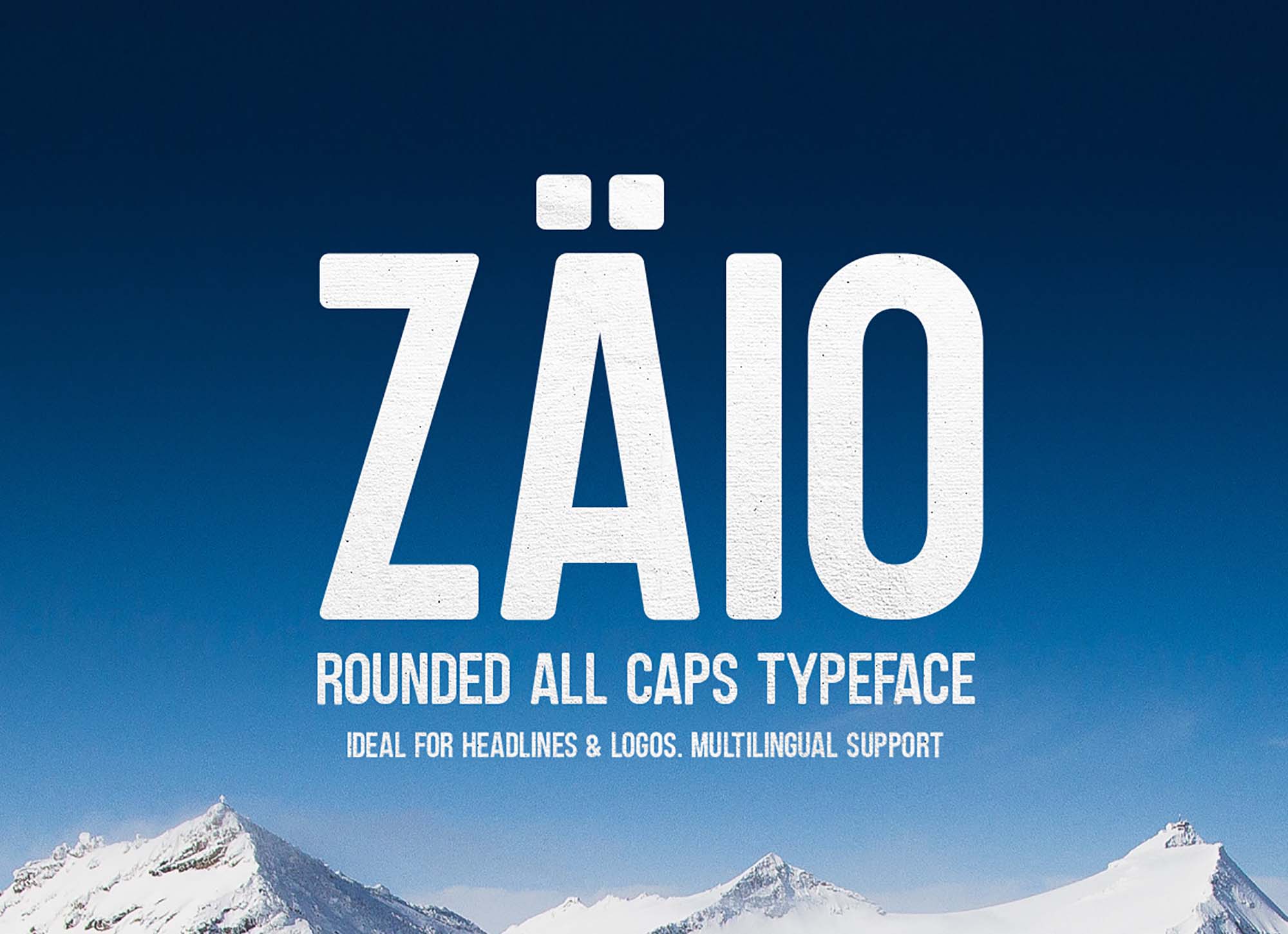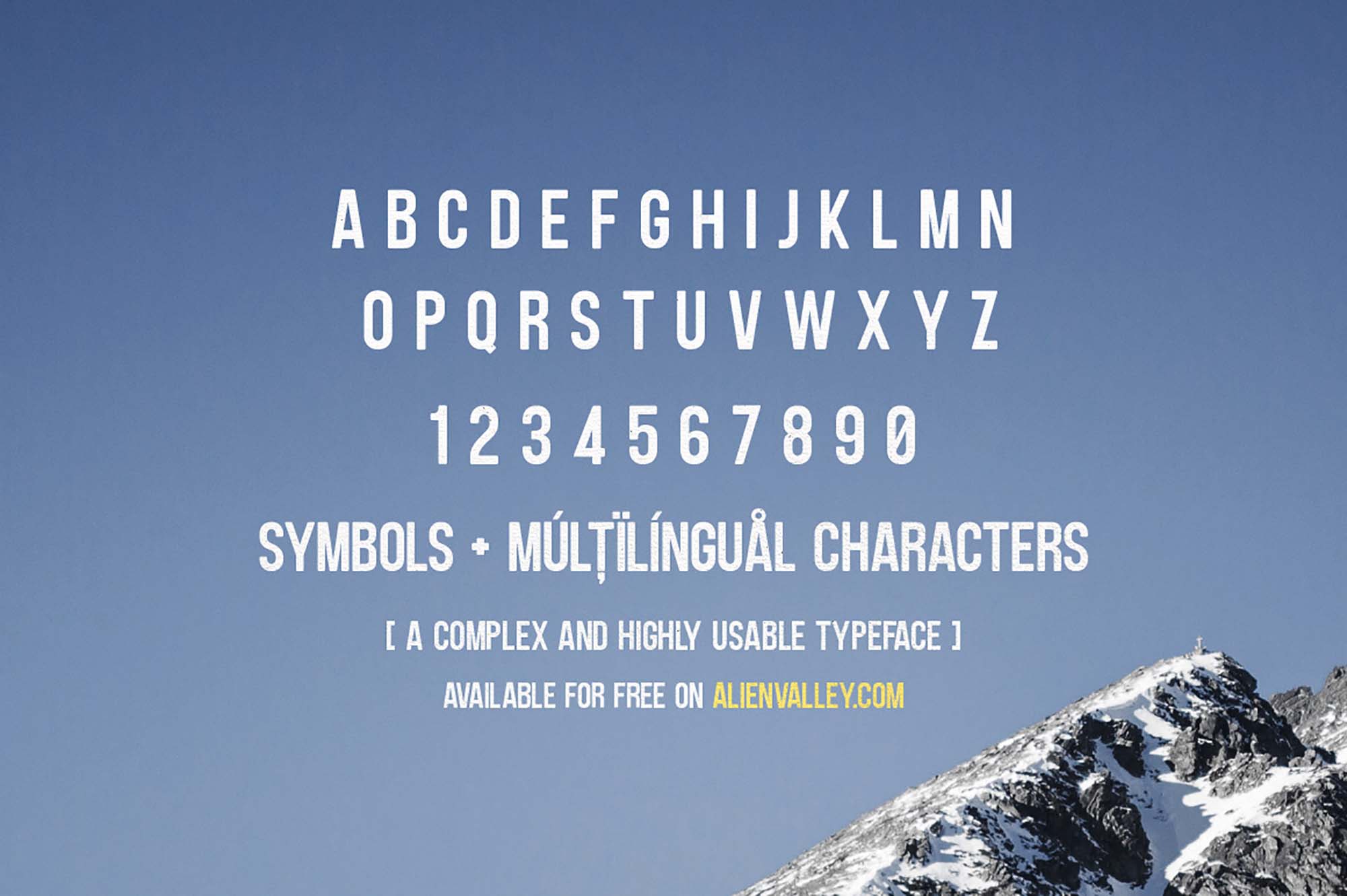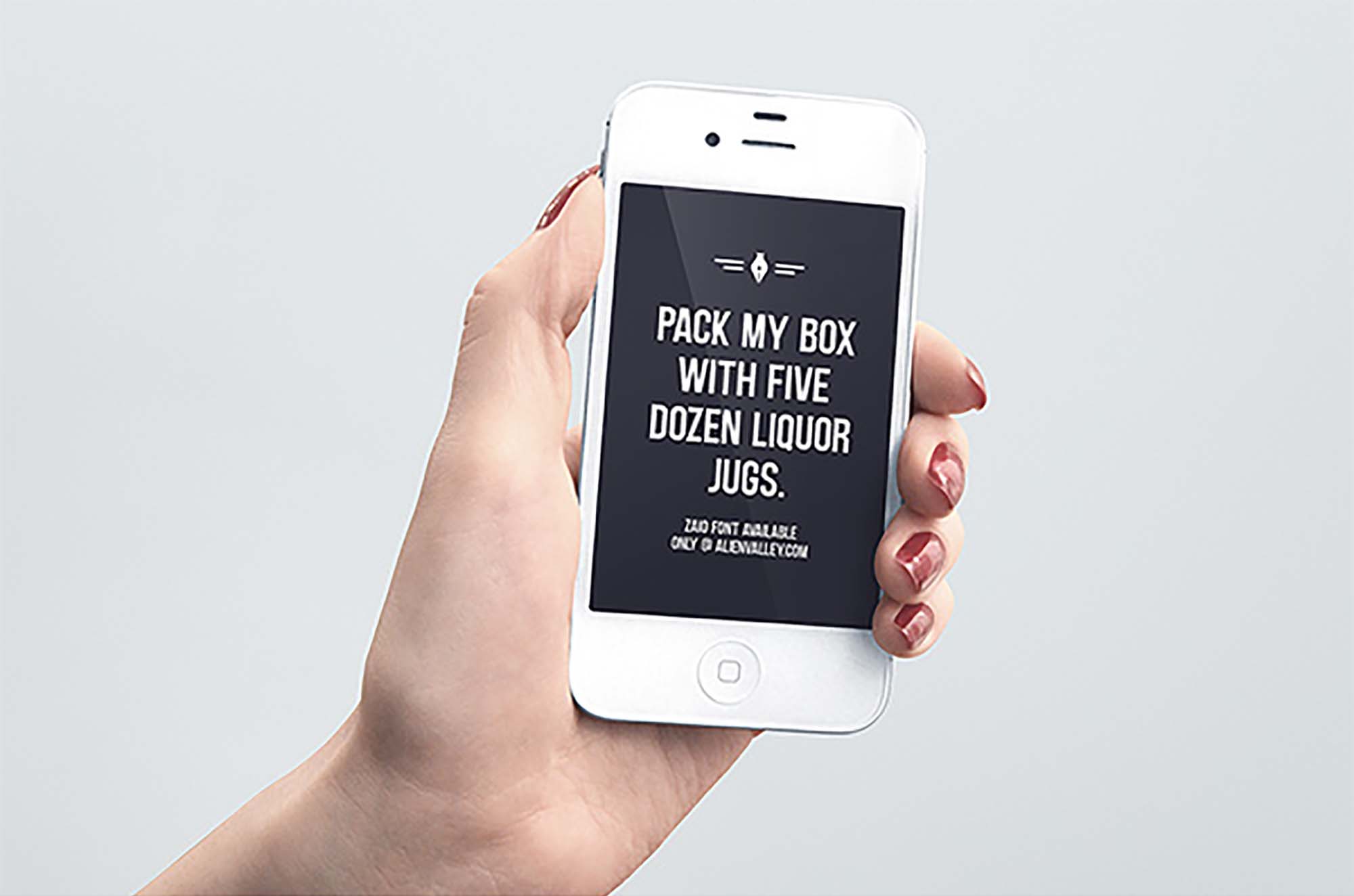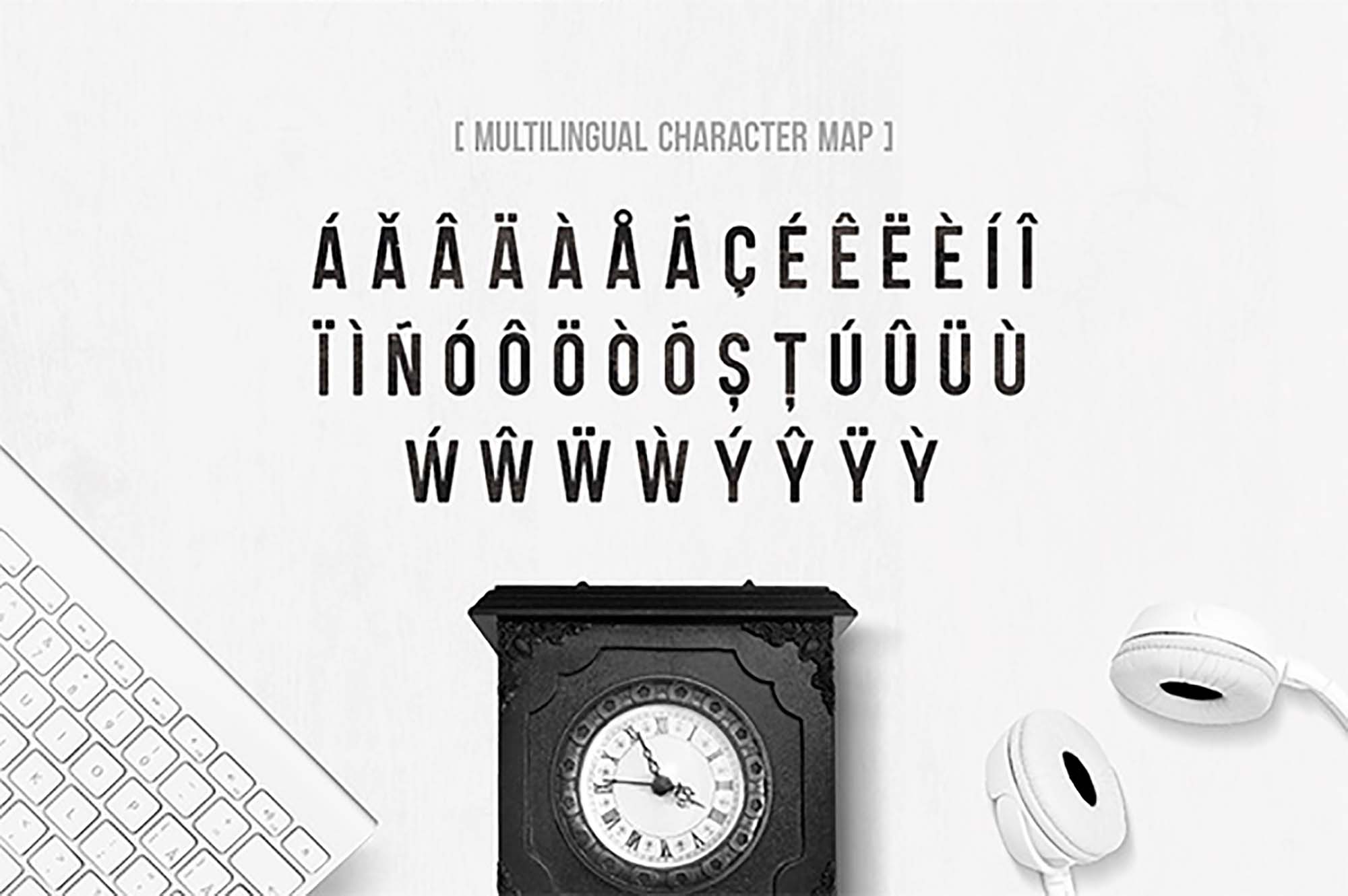
Zaio Rounded Font
Some fonts are created to embellish a scene and some are designed to make it. So instead of trying to make your texts appear richer and more vibrant, simply make them so with Zaio. Introducing Zaio, a new all caps rounded typeface inspired by Bebas Neue by Ryoichi Tsunekawa.
Rich with its complex characters, straight lines, and consistent height, it’s ideal for headlines and logos, so with a commercial license present, you can create designs for stationery projects, magazines and newspapers, and a collection of online posts and advertisements. It’s for when you know exactly what you want, so dream big and bring this all caps typeface from Alien Valley along the way. It presents you with plenty of options with its set of numbers and symbols and multilingual support, and it comes in OTF, TTF, and Webfont formats (WOFF, WOFF2, and EOT).